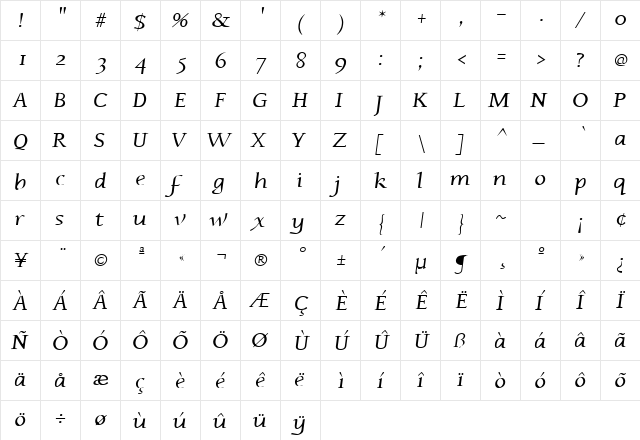
Phaedrus Italic
Design Context for Phaedrus Typeface
Phaedrus offers clean, dependable letterforms without strong stylistic allegiance, making it a practical choice for designers who need flexibility. The slanted form adds forward momentum and visual energy.